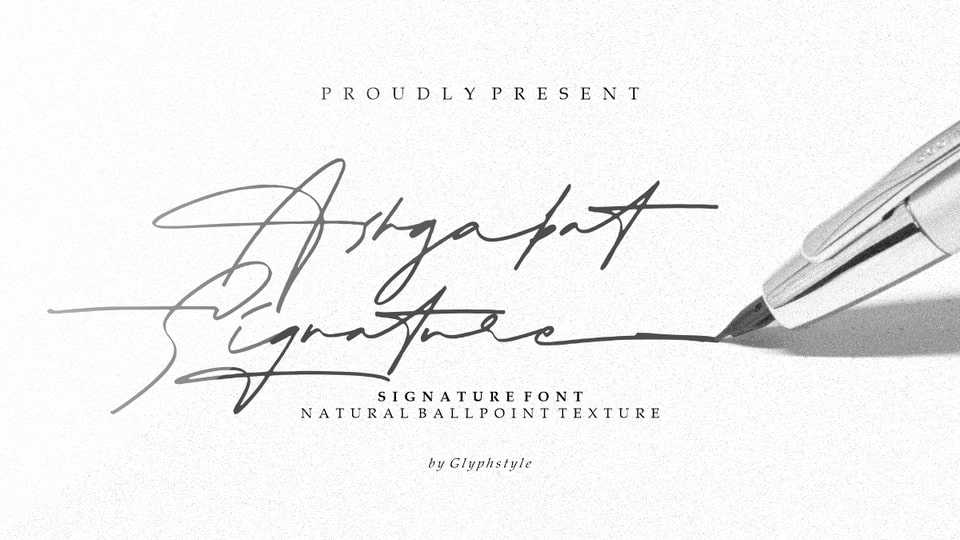
Download Ashgabat font, a natural signature style typeface that looks natural with a pen stroke-like texture. A bold and elegant looking font like the original signature style.